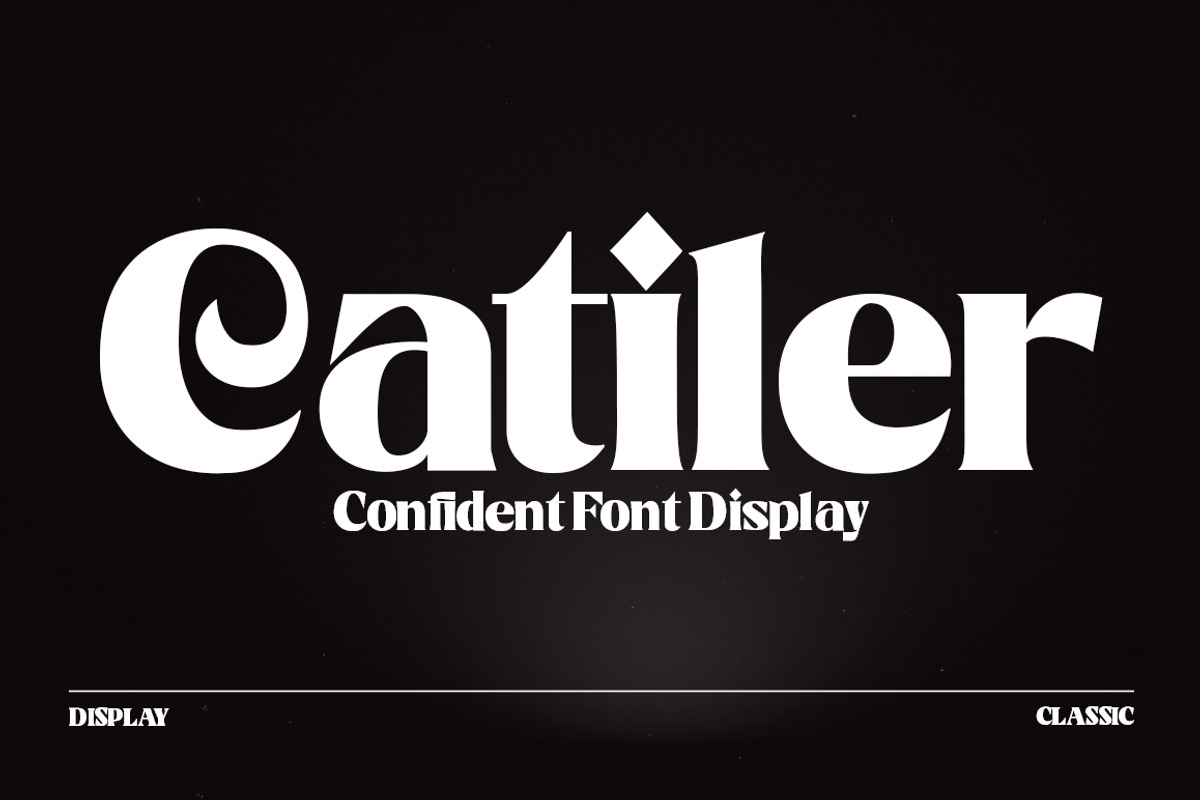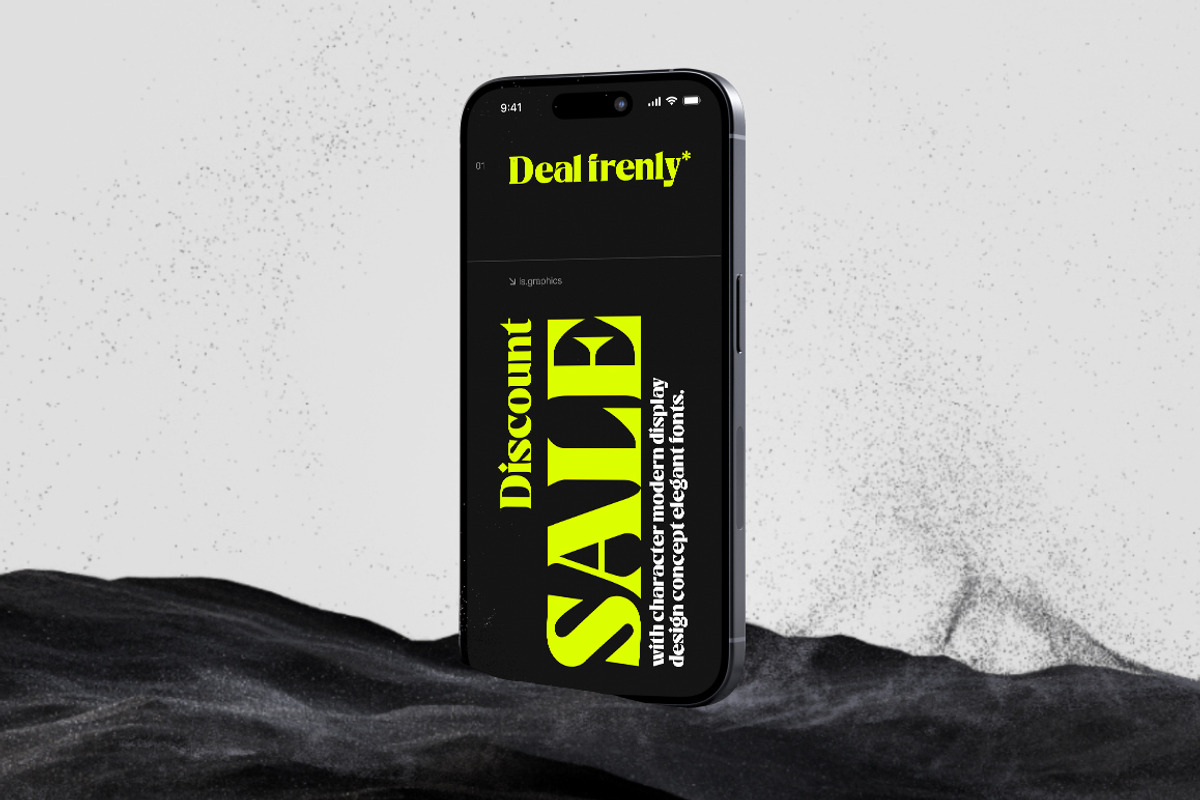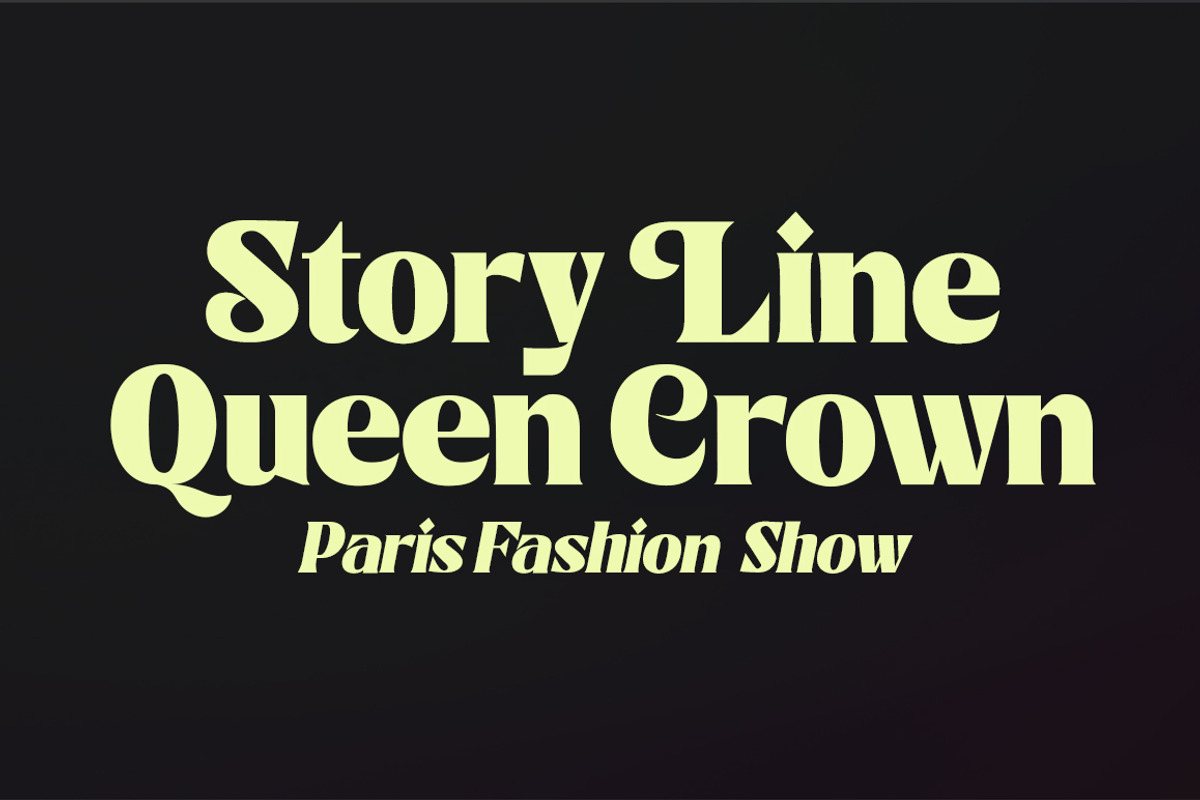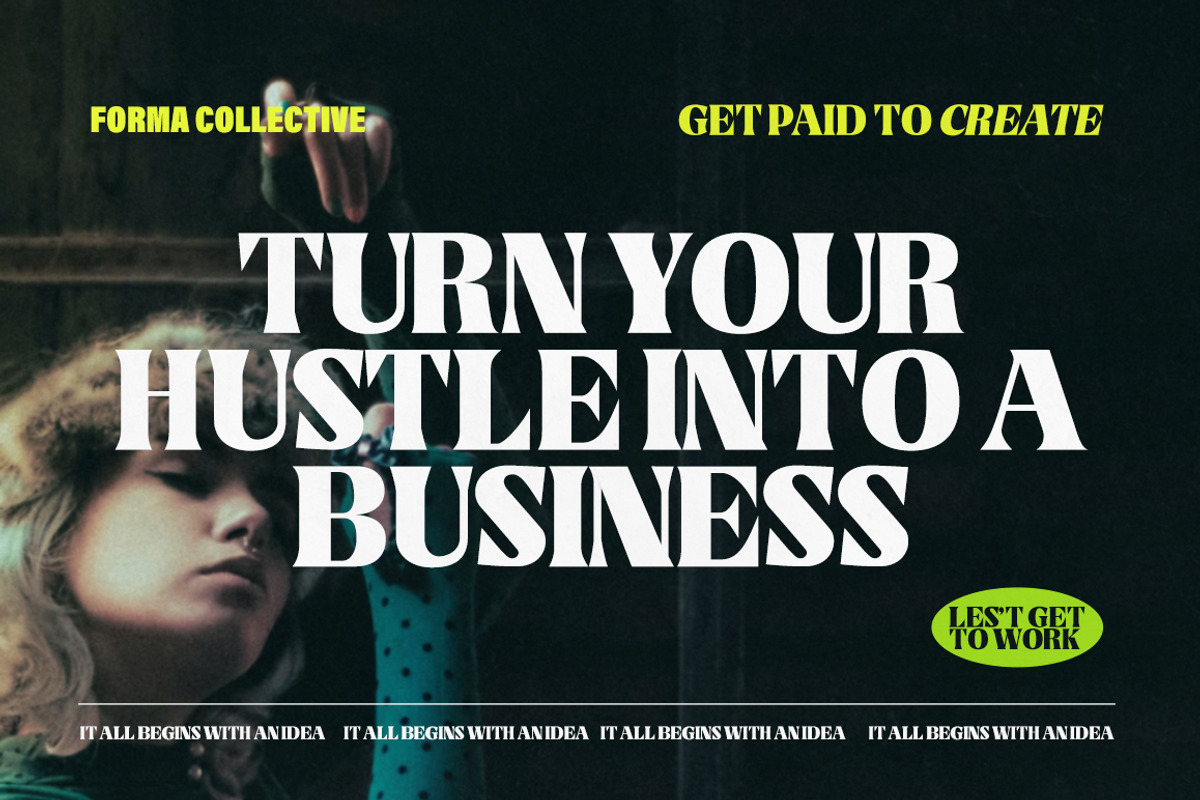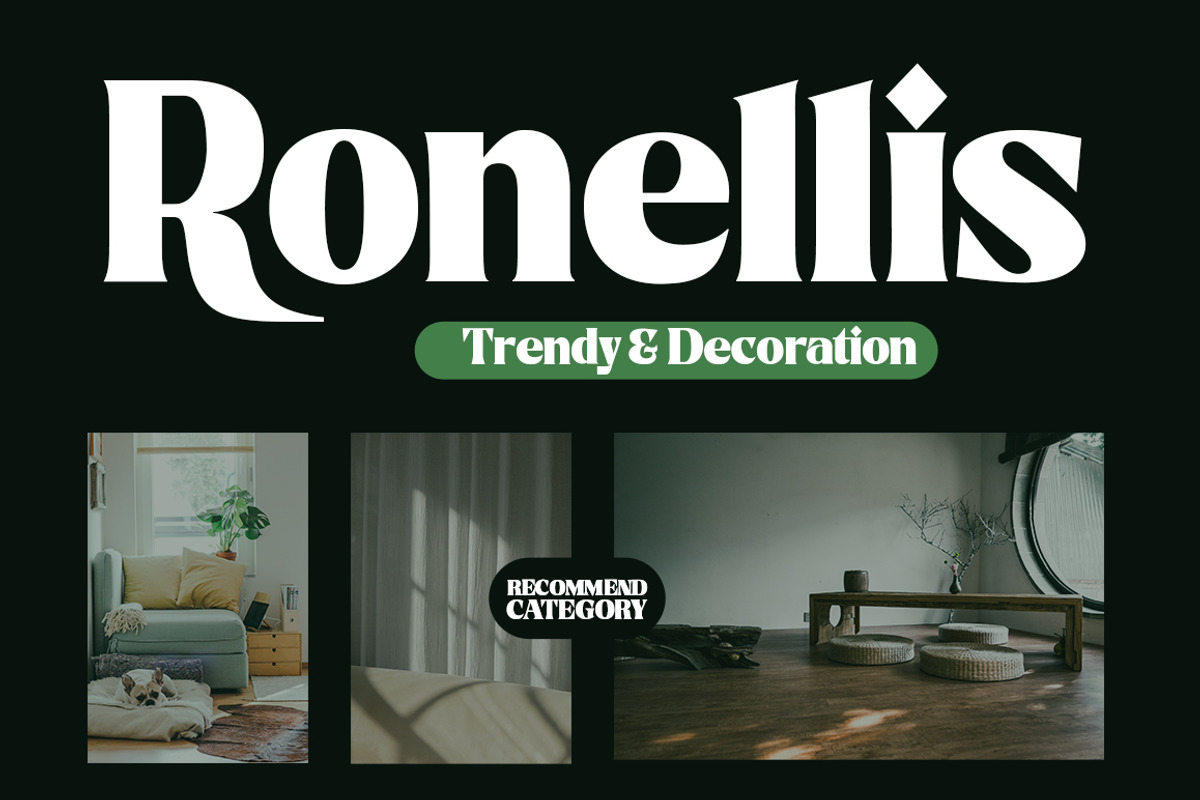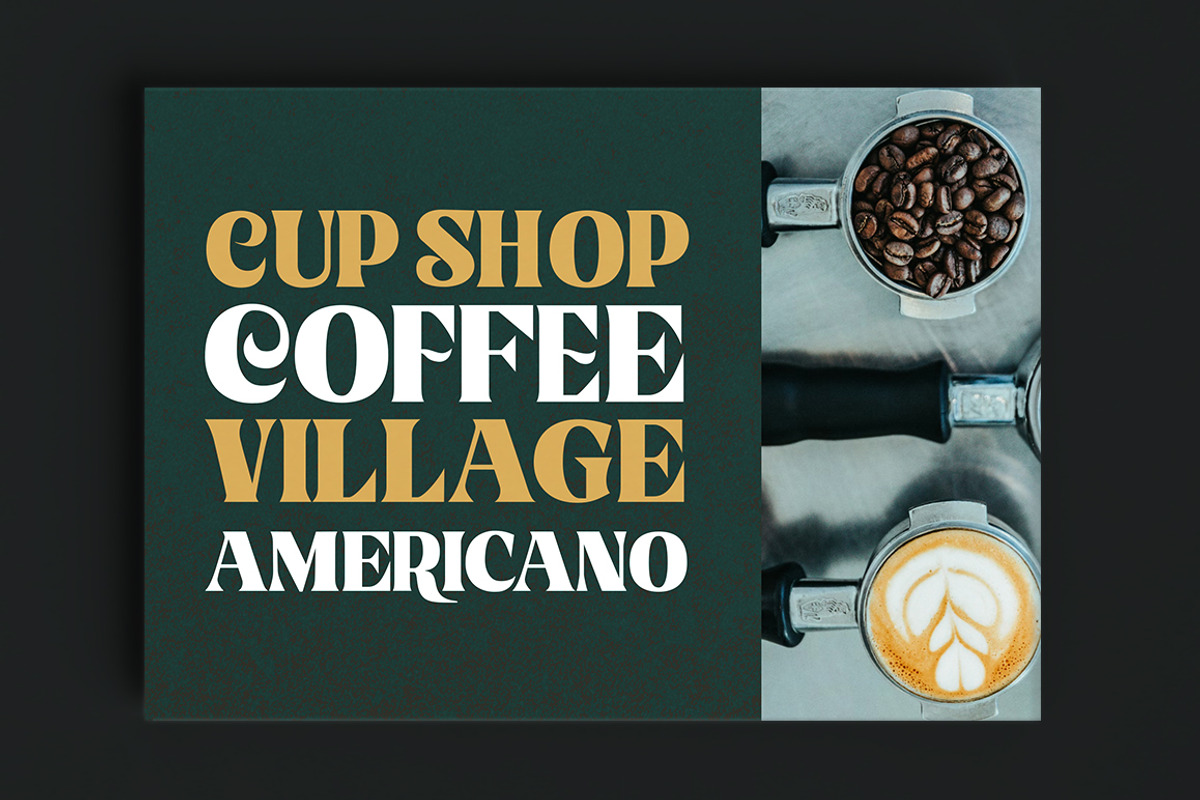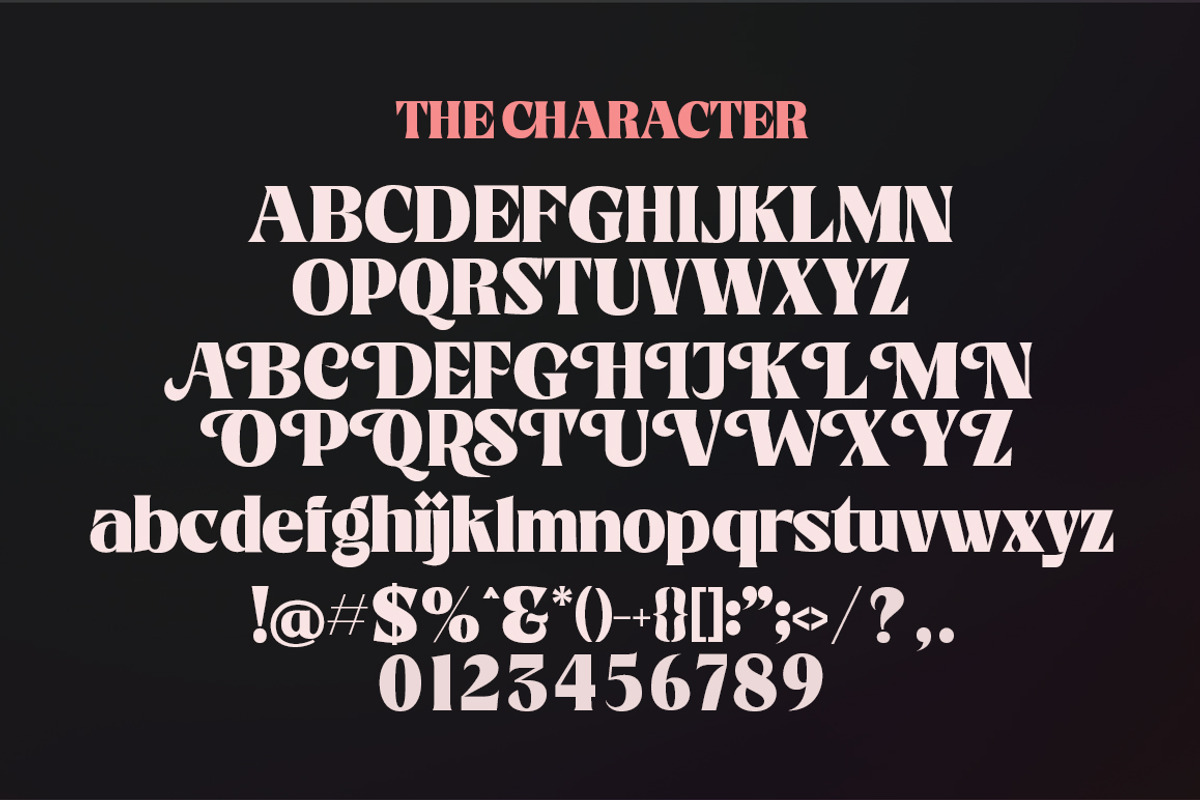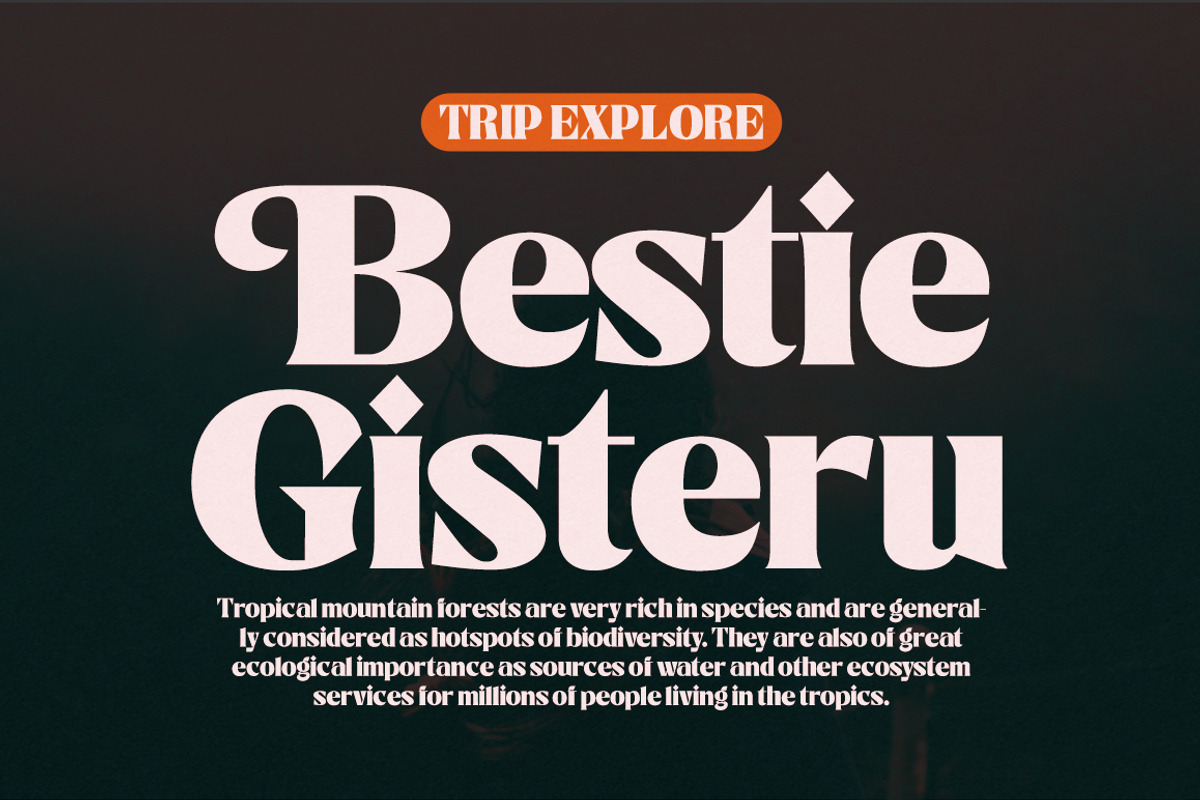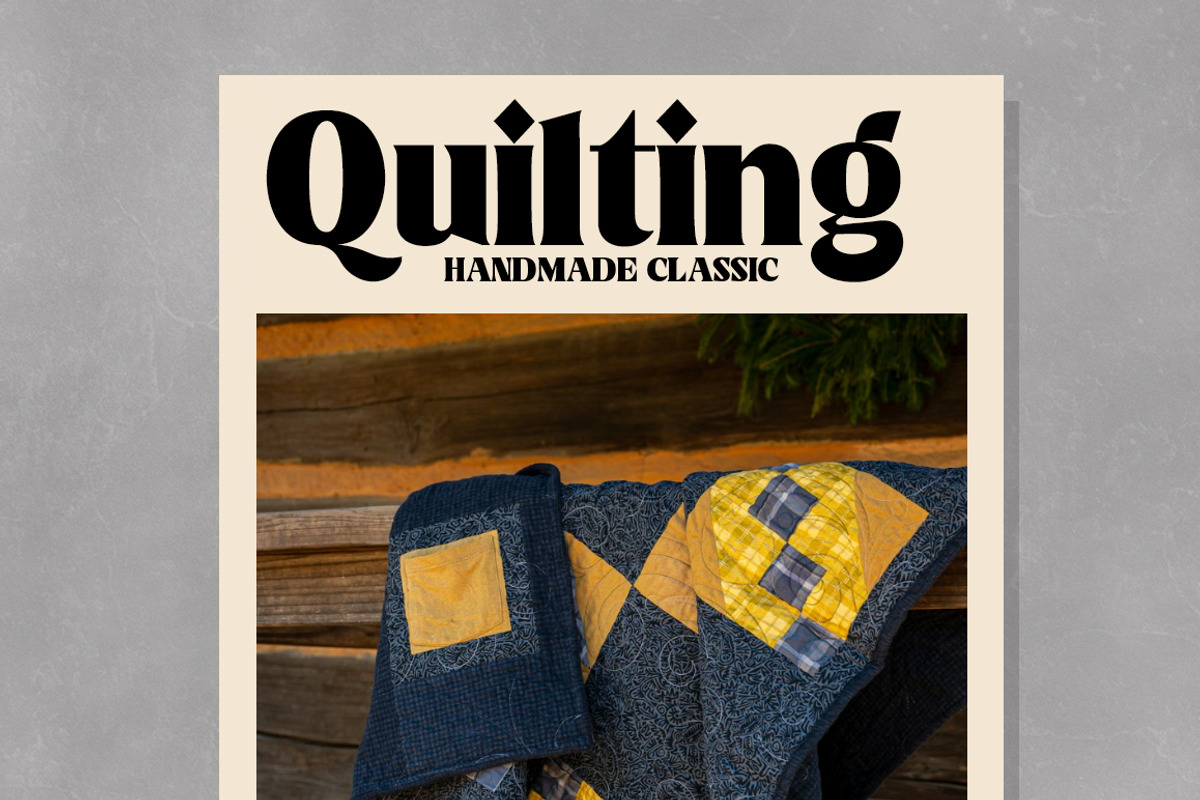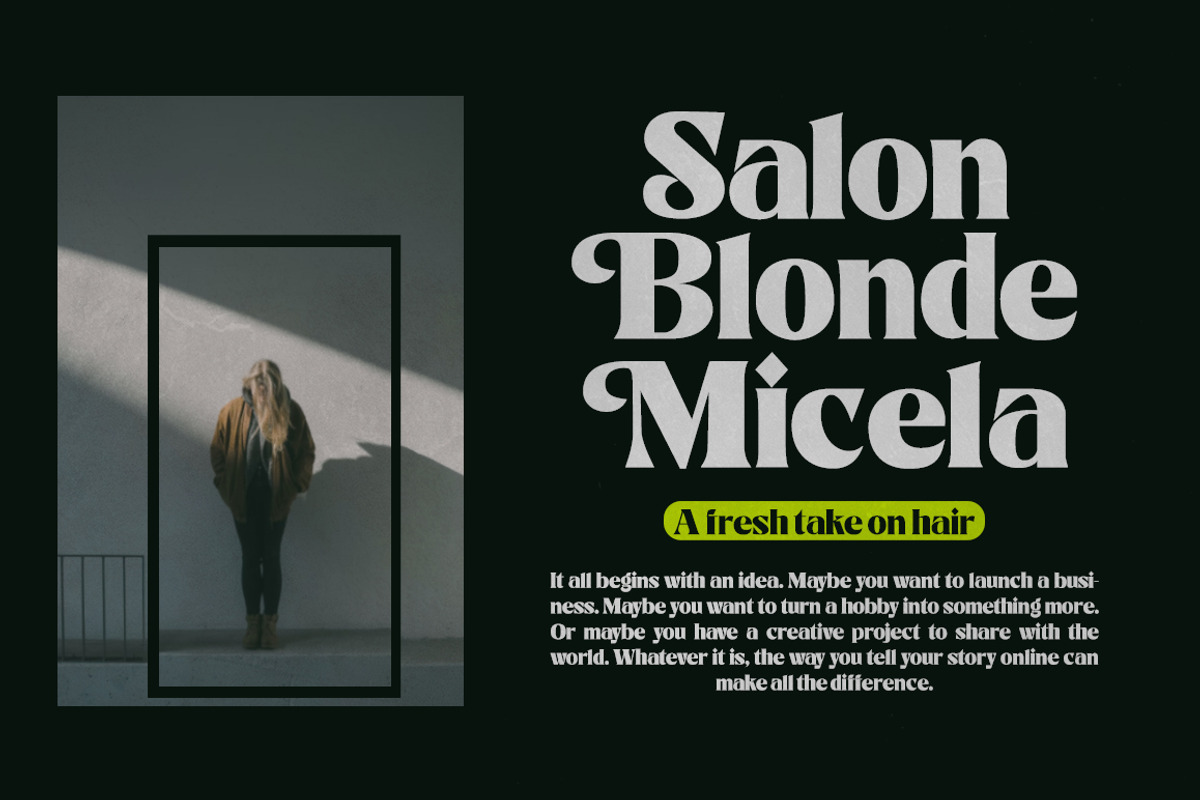
Catiler
Catiler is an elegant and highly dynamic modern display font for editorial titles. This serif and italic font style is OpenType-enabled, making it easy to use in a variety of projects. It also comes with symbols and multilingual support. This bold, bold, and sleek font style is suitable for editorials, web, posters, t-shirts, magazine covers, and more.
Catiler exudes character yet remains functional thanks to its restrained modern style and contemporary construction.